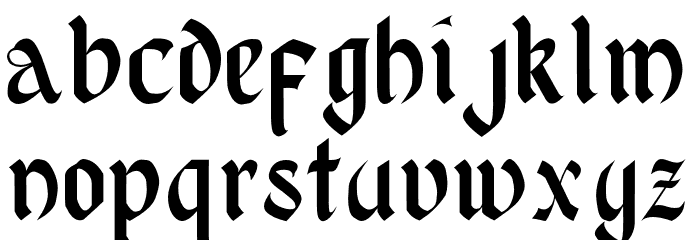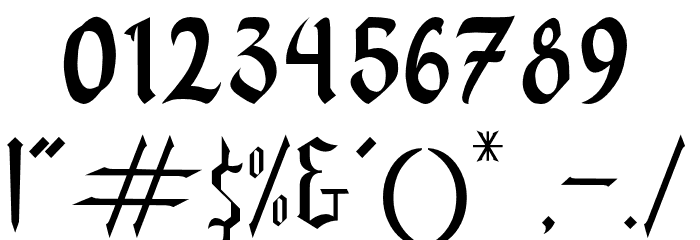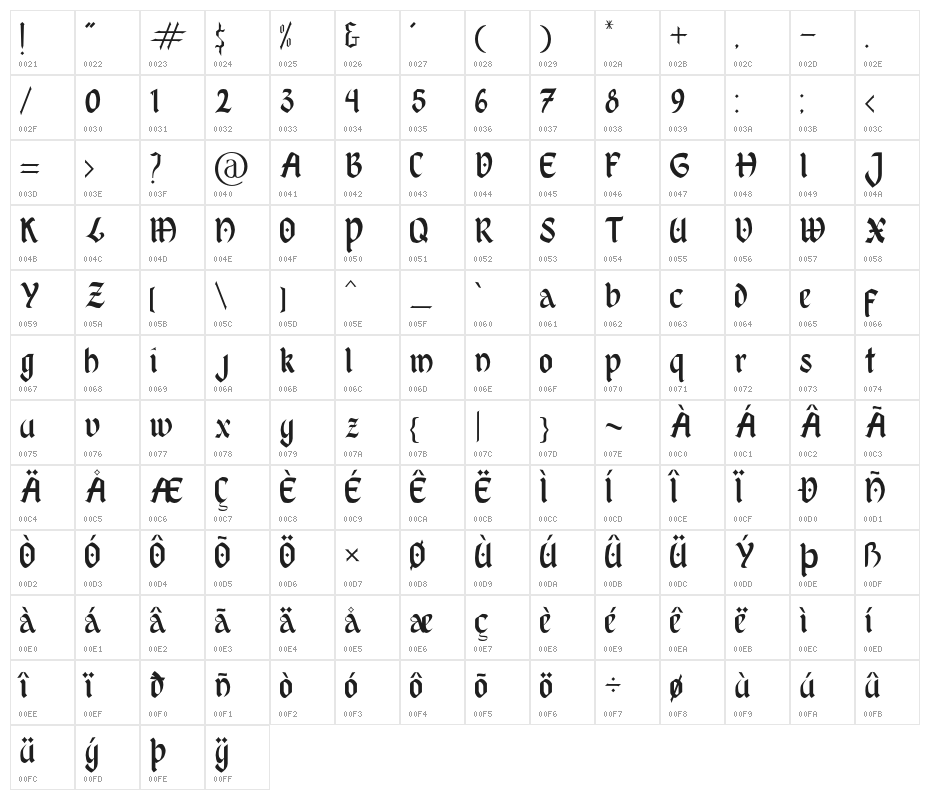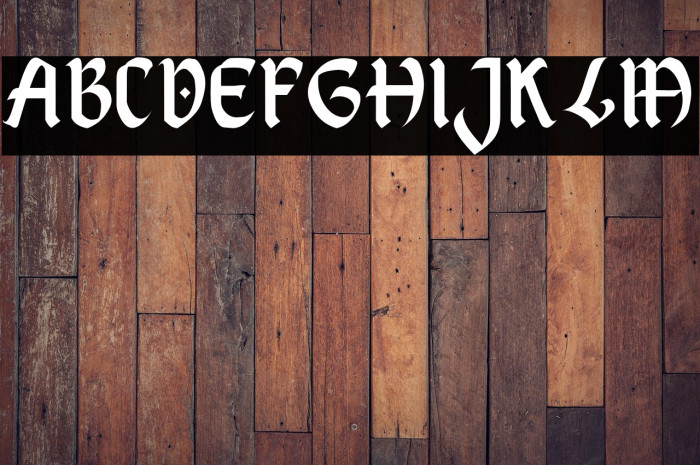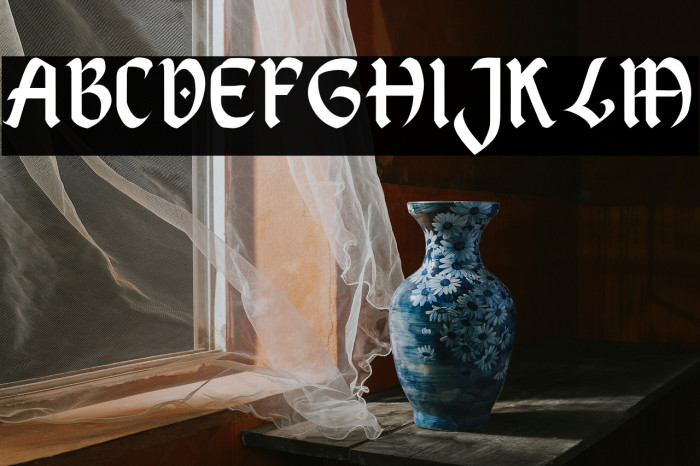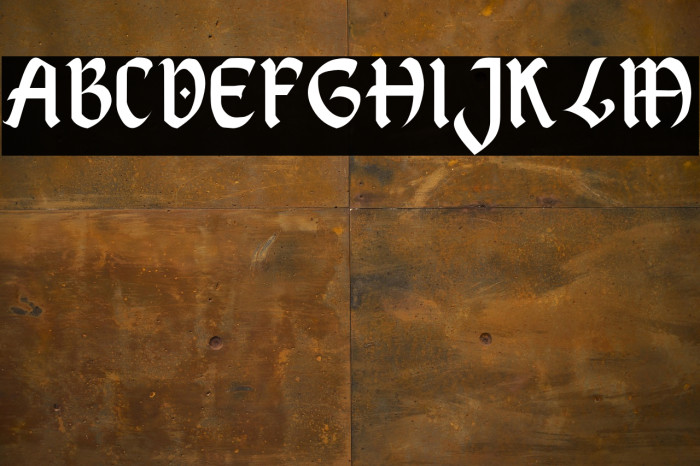
BlackWhite Font
This font exhibits a classic blackletter style, characterized by its sharp, angular lines and ornate detailing. The uppercase letters are bold and commanding, with intricate serifs and a gothic flair. The lowercase letters maintain the same decorative style, with a slightly more fluid form that complements the uppercase. Numbers are consistent with the overall aesthetic, featuring the same bold strokes and angular design. Special characters are uniquely styled, adding to the font's distinct personality. This font is reminiscent of medieval script, often seen in historical documents and traditional calligraphy.
A bold, gothic blackletter font with sharp, angular lines and ornate detailing.
- Font: BlackWhite
- Proposed Projects: Ideal for projects requiring a historical or traditional touch, such as event invitations, certificates, or branding for vintage-themed products.
- Category: Blackletter
- Overall Style: Vintage
- Use Case: Headlines, Logos, Decorative text